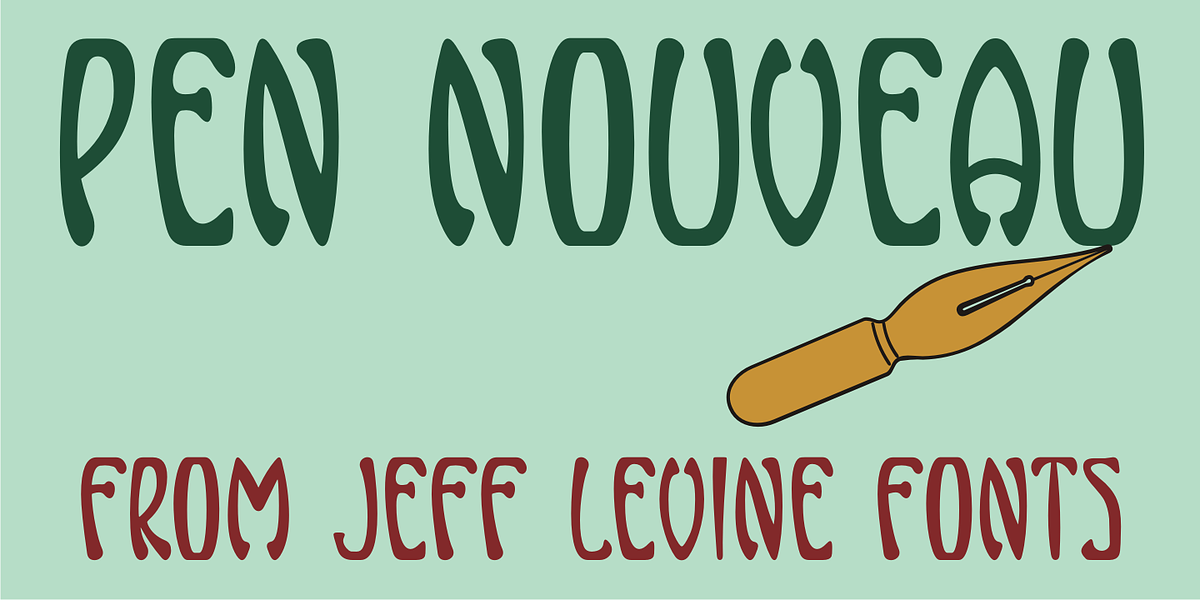
Pen Nouveau JNL
Pen Nouveau JNL is a perfect example of the fluid, free-form pen lettering popularized during the Art Nouveau era of the early 1900s.
The type face was modeled from the lettering on the cover of a piece of sheet music from 1911 entitled "If You Talk in Your Sleep, Don't Mention My Name".